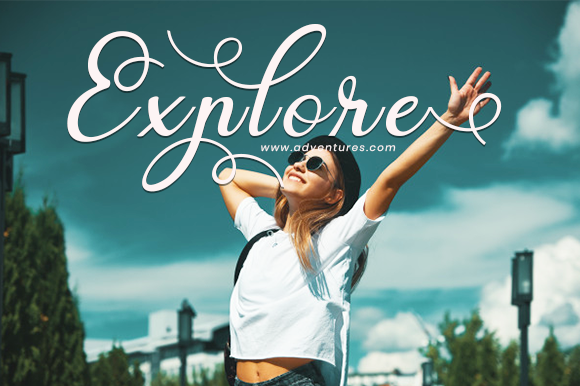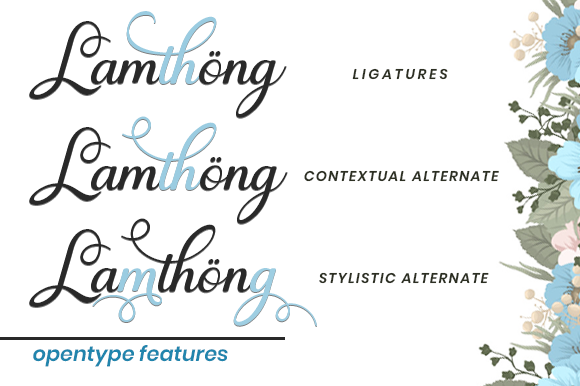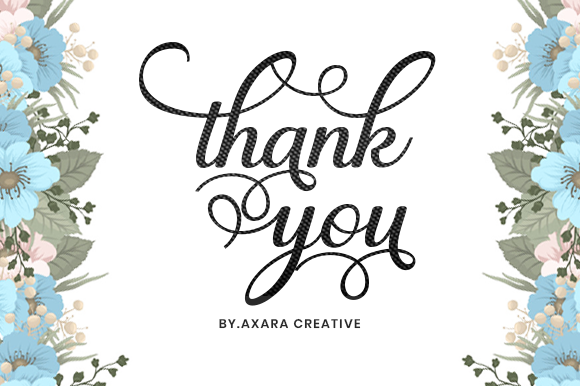
Introduction to Lamthong Font Font
Fonts play a crucial role in design, and the Lamthong Font font is a typeface that brings both character and versatility to any project. Whether you’re working on a branding project, a website, or a print design, the Lamthong Font font offers a unique style that can elevate your work.
Lamthong feels equally charming and elegant.
This stunning handwritten font is a stylish homage to classic calligraphy This font is the perfect fit for all of your logos, branding, social media, and crafty DIY projects.
Key Features of Lamthong Font Font
Why Choose Lamthong Font Font?
The Lamthong Font font is more than just a typeface – it’s a design tool that helps you communicate your message with style and clarity. Its unique character set and versatile design make it suitable for a wide range of applications, from elegant invitations to bold headlines.
With its carefully crafted letterforms and balanced proportions, the Lamthong Font font ensures readability and visual appeal across all mediums.
What makes Lamthong Font font special?
The Lamthong Font font stands out with its unique design, exceptional readability, and versatility across various design applications.